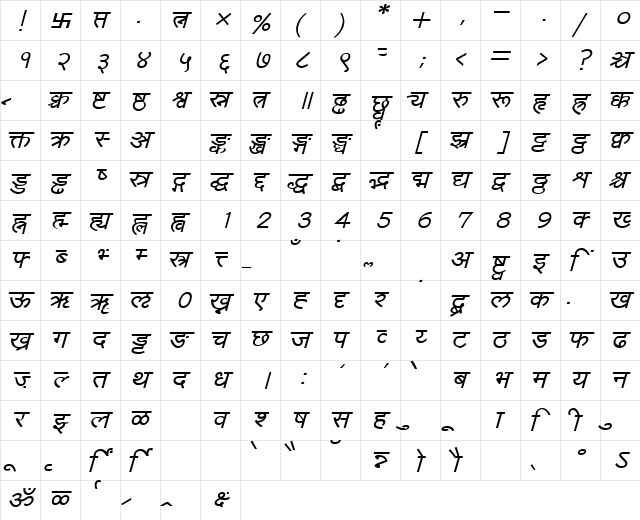
Yogeshweb Italic
Design Context for Yogeshweb Typeface
Yogeshweb is a composed and adaptable typeface that performs quietly and consistently across a wide range of design contexts. The slanted form adds forward momentum and visual energy.
Pro Tip: Use Yogeshweb for emphasis, pull quotes, and subheadings where its slanted energy can add rhythm to the layout.